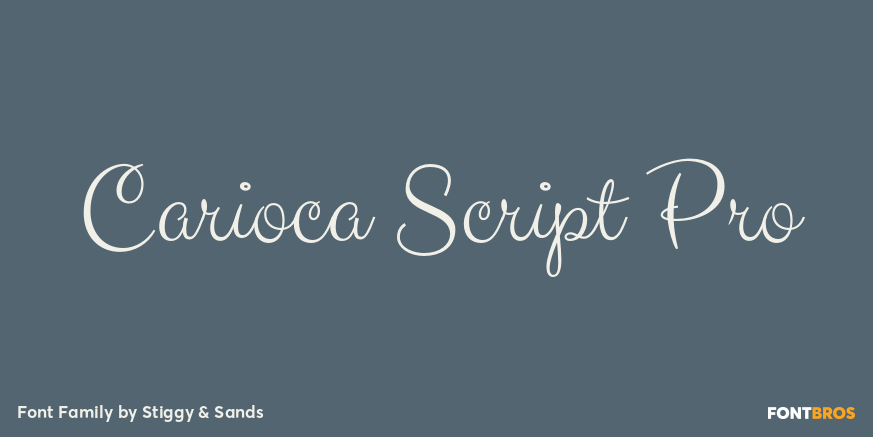
Carioca Script Pro
About Carioca Script Pro
Our Carioca Script Pro was inspired the lettering from the RCA Records Stereo Action Series from the 1960\’s. It\’s a signature script that is both elegant yet slightly bouncy and truly sings?lending a happy-go-lucky flavor to any design. This script is…